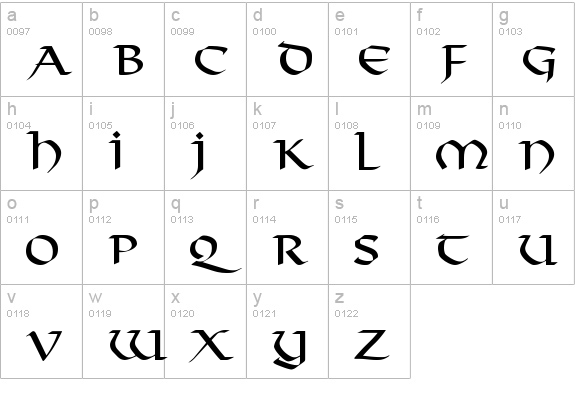
Thor Regular is the standard, neutral variant in the Thor typeface family \xE2\x80\x94 well suited to general body text, paragraphs, and standard typographic work.
Introducing Thor Regular, a versatile and charismatic font that commands attention with its bold presence. With its clean lines and strong strokes, Thor Regular exudes confidence and elegance, making it the perfect choice for a wide range of design projects. Whether you're designing a logo, creating a striking headline, or crafting a captivating poster, Thor Regular will effortlessly capture the essence of your message. Its timeless appeal and balanced proportions ensure that your text will be legible and visually appealing, leaving a lasting impression on your audience. What sets Thor Regular apart is not just its exceptional design, but also its accessibility. This exceptional font is freely available to download at FontsMarket.com, allowing designers and enthusiasts alike to utilize its powerful impact without breaking the bank. Now, you can confidently enhance your designs with the sophistication and allure that Thor Regular brings, without any financial constraints. Embrace the creative possibilities and let Thor Regular elevate your projects to new heights. With its timeless appeal and accessibility, this font is a valuable asset for any designer. Download Thor Regular today, and unlock the potential to create stunning visuals that leave a lasting impact.